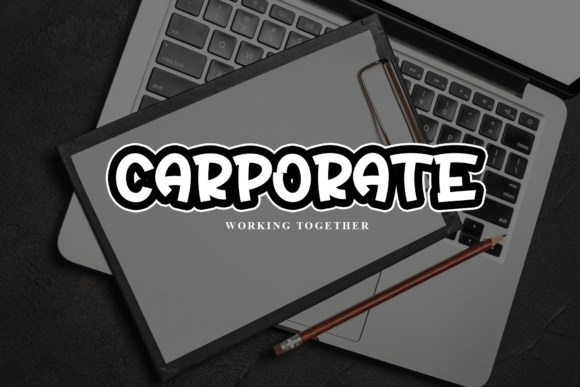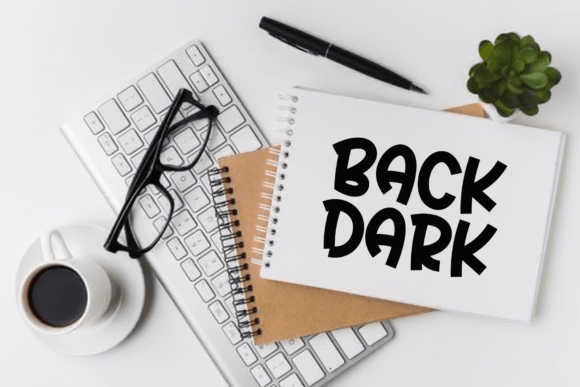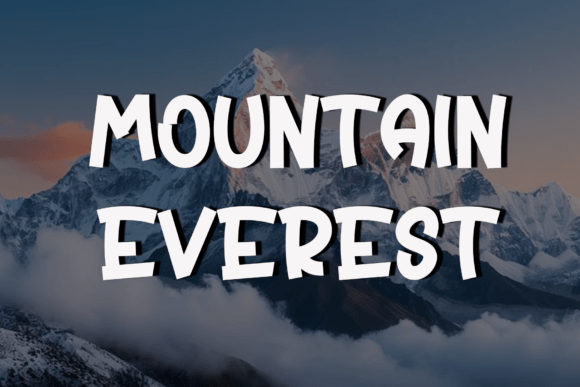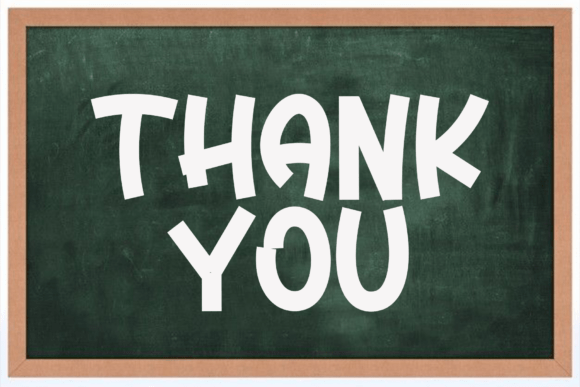
The Perfect Blend of Style and Clarity: Introducing Branding Font
Have you ever stared at a blank canvas, trying to decide on the perfect font to convey your message? The struggle is real, especially when you’re aiming for a modern, yet approachable look. That’s where the Branding Font comes in – a game-changer for designers who want to add a touch of personality to their projects.
This versatile font is designed to capture the charm of relaxed design while maintaining clarity and style. With its clean shapes, soft edges, and well-balanced letterforms, the Branding Font is perfect for posters, branding, packaging, and social media graphics. Whether you’re a seasoned designer or a newcomer to the world of typography, this font is a valuable addition to your toolkit.
Key Features of Branding Font
- Font Family: Branding Font is a custom-designed font family, ideal for creating a unique and recognizable brand identity.
- Unique Characteristics: Branding Font features a distinctive blend of modern and classic elements, with custom-designed letterforms and subtle flair to create a distinctive visual identity.
- Multi-Lingual Support: Branding Font supports a wide range of languages, including Latin, Cyrillic, and Greek, making it an ideal choice for global brands and organizations.
Designer Review: Branding Font
Branding Font is an intriguing font that caught my attention with its unique and modern aesthetic. ✨ I appreciate how it effortlessly conveys a sense of professionalism and sophistication. It’s versatile enough to be used across various mediums, from digital platforms to print materials.
- Wide range of font styles and weights
- Easy to read, even in small text sizes
However, there are some limitations that I think need to be addressed. ⚠️ For instance, the font may not be suitable for body text, as it can be a bit too ornate and may cause visual fatigue. Additionally, the font’s complexity may make it difficult to use in situations where readability is a top priority.
Overall, I think Branding Font is a solid choice for projects that require a touch of elegance and sophistication. While it may not be perfect for every use case, it’s certainly a great option for branding, logos, and other visual identity elements. With a bit more attention to legibility, I think this font has the potential to become a go-to choice for designers.